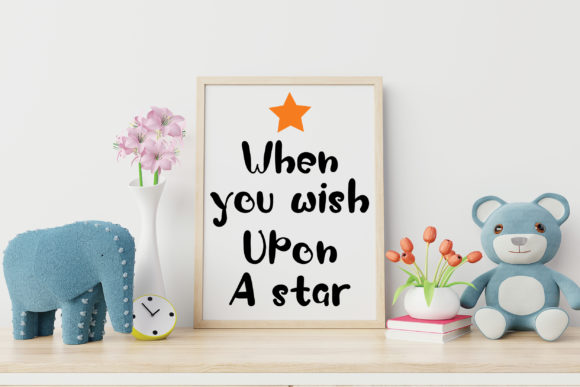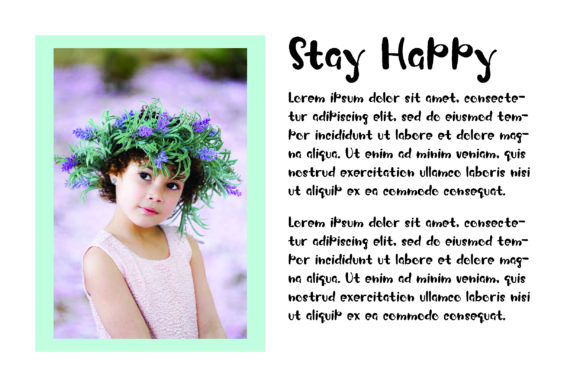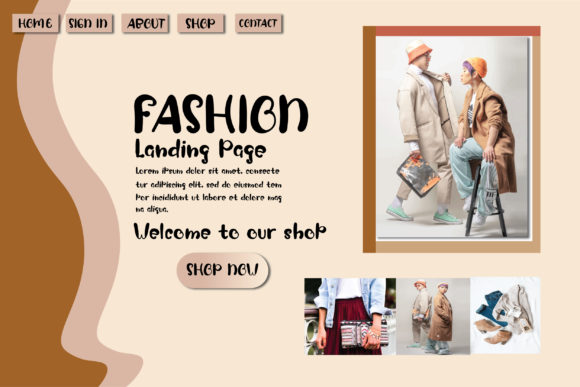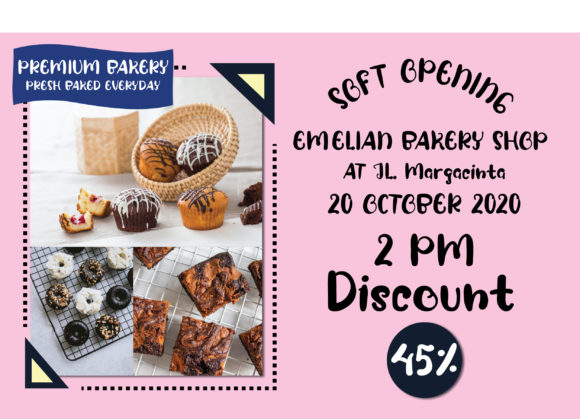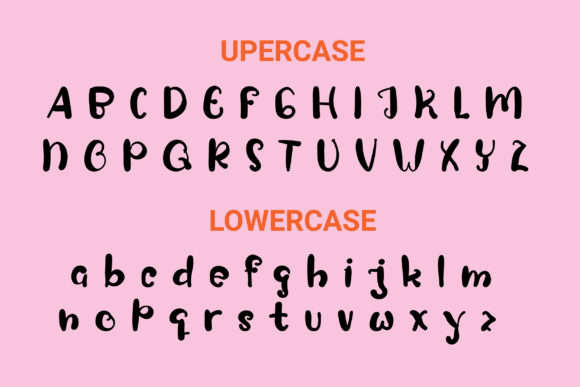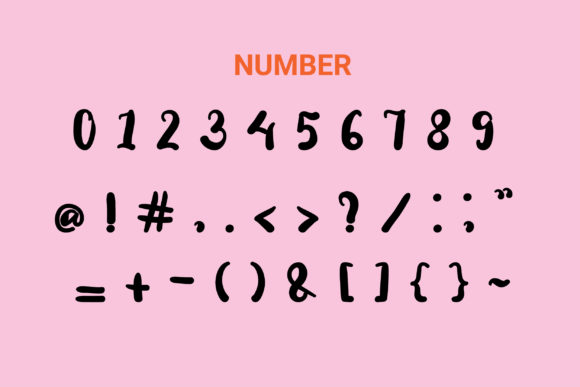
Raos Font
About Raos Font
Raos is a sweet and bold handwritten font. Its distinct and well rounded letters make this font a masterpiece. Fall in love with its incredibly versatile style and use it to create spectacular designs!